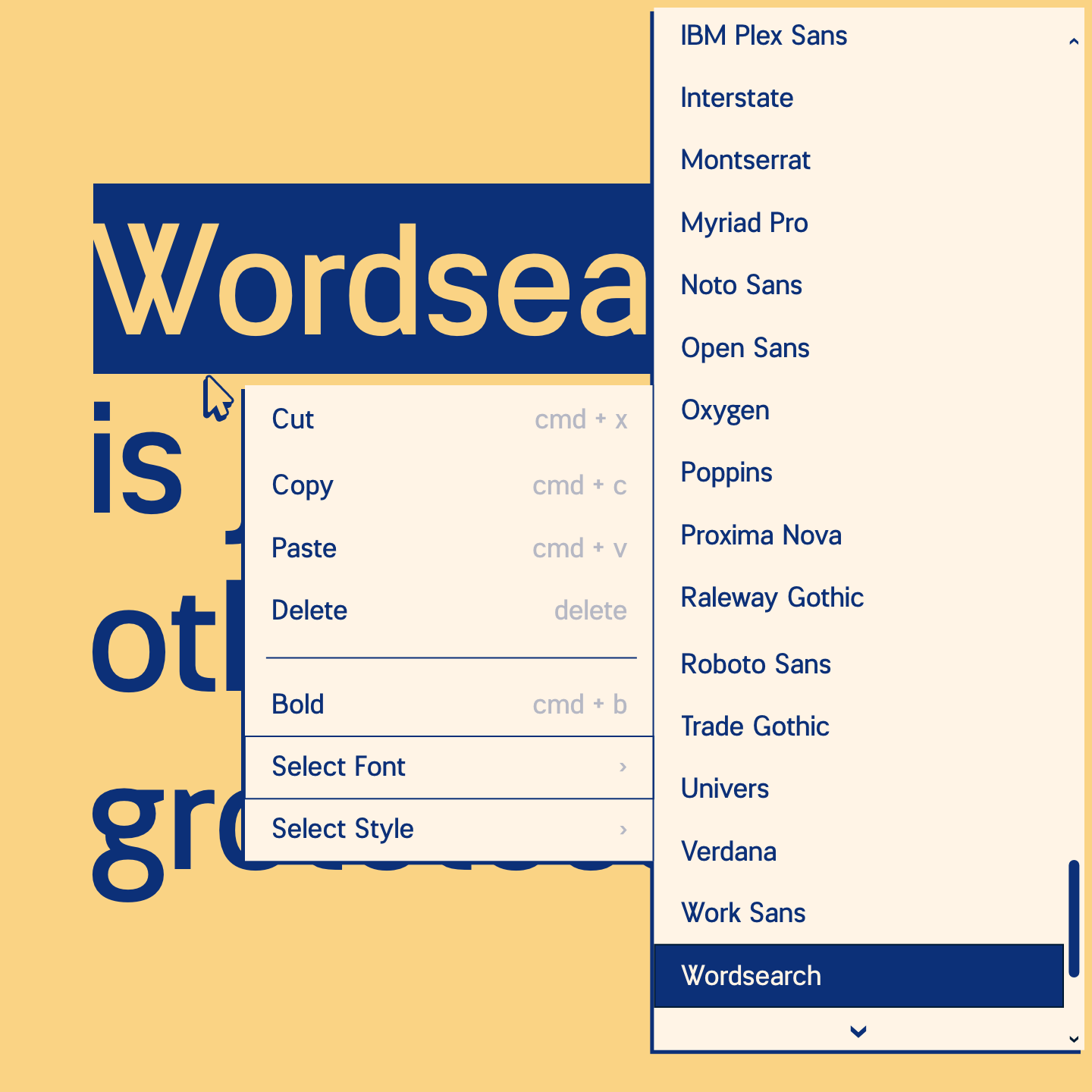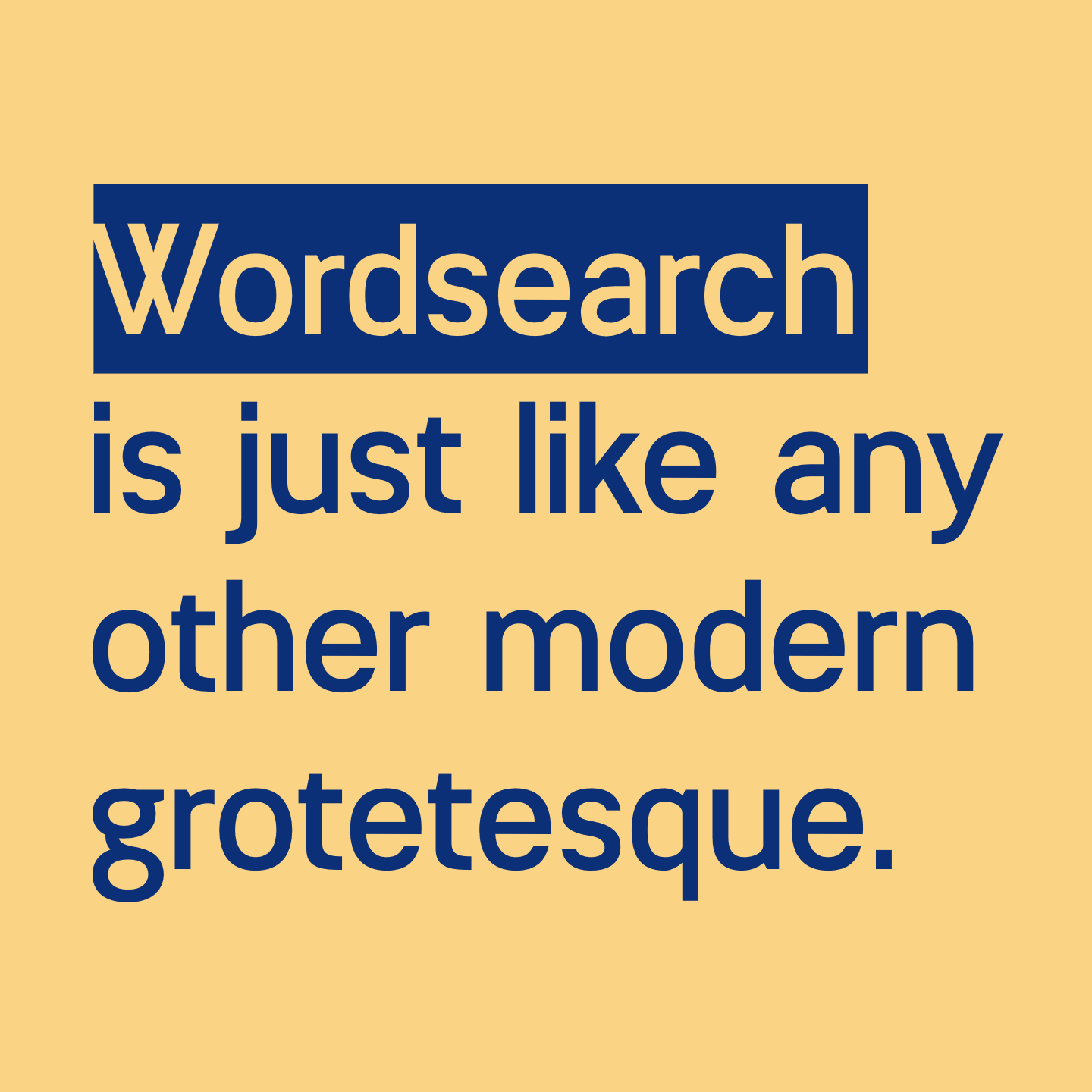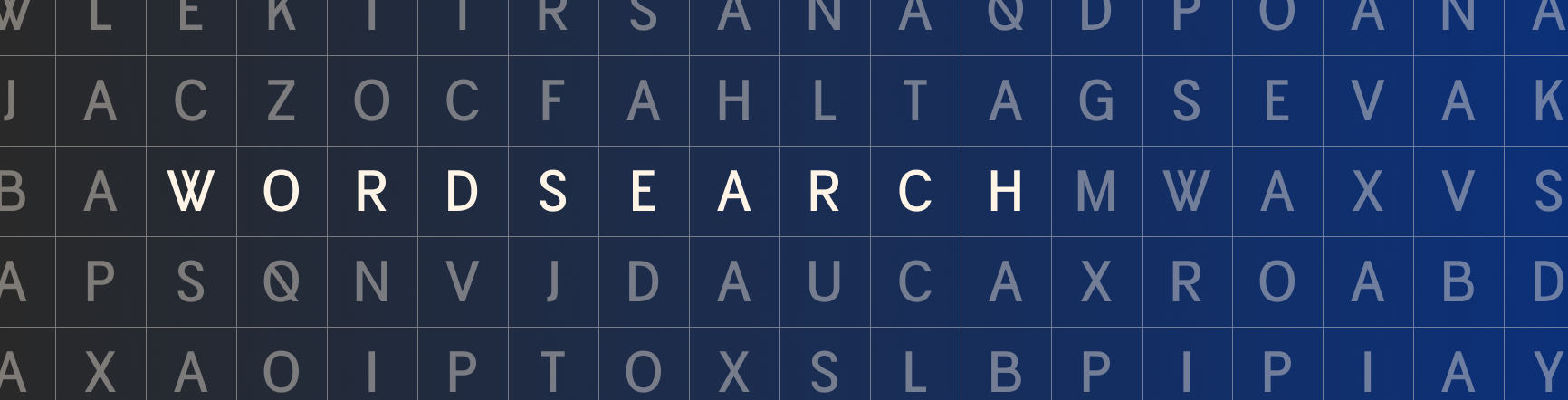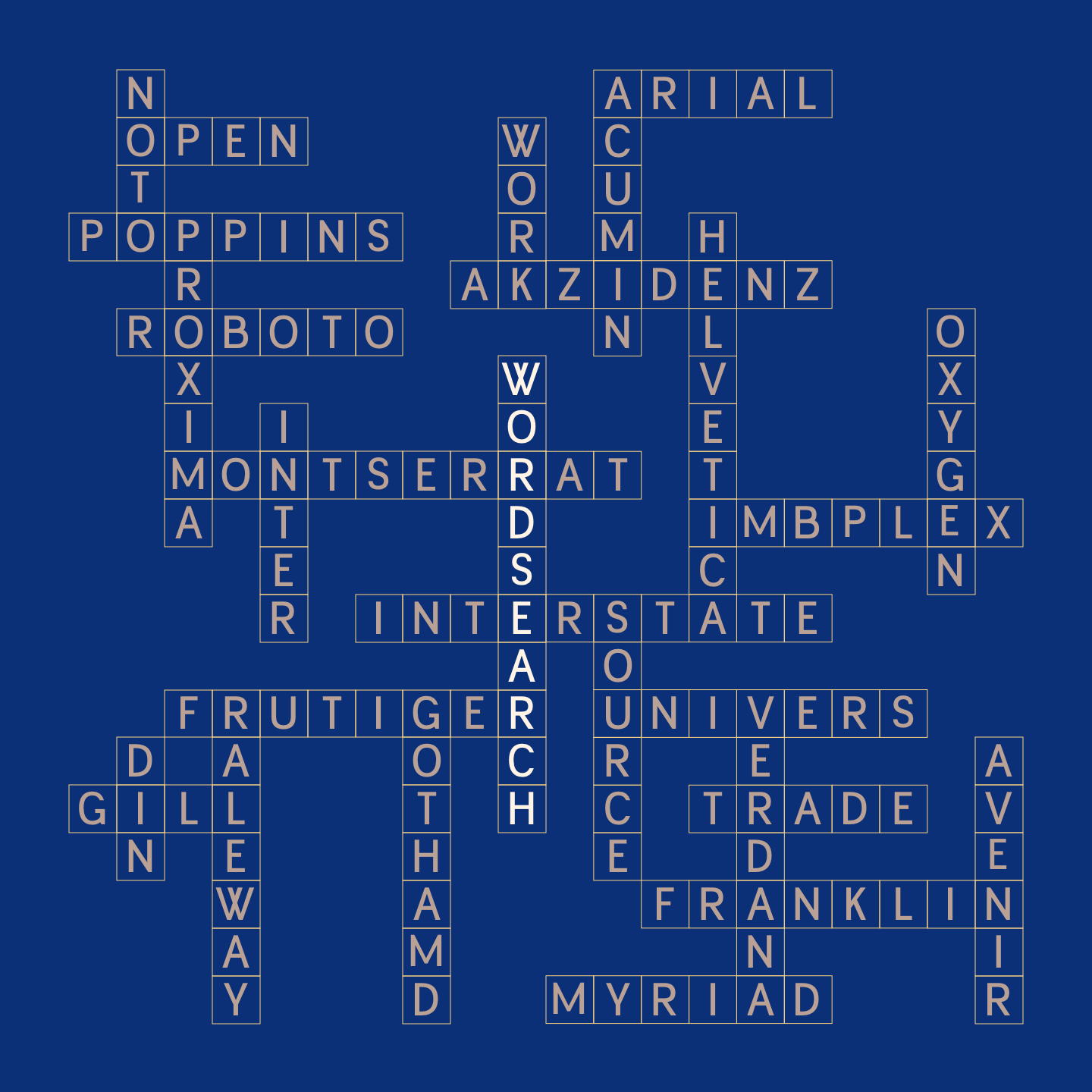
Wordsearch
Sans-serif Text Font
Wordsearch is a modern grotesque that aims to capture all the ubiquity and none of the flair of such everyday typefaces as Helvetica, Arial, and Open Sans. As a result wordsearch is great for large amounts of text, ui/ux elements, and even the odd newspaper puzzle.